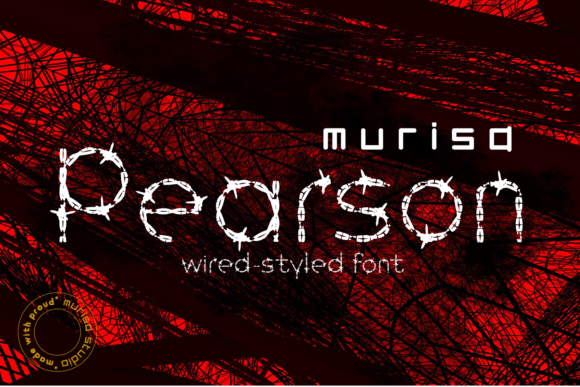
Introducing Murisa Pearson, the captivating display font that will elevate your designs to new heights. This modern marvel, crafted by the talented minds at murisa.studio, exudes a unique and enticing aura that will leave an unforgettable impression.
Prepare to be mesmerized as Murisa Pearson's bold and striking characters dance across your screens, demanding attention and captivating the senses. Its meticulously crafted curves and sharp angles create a visual symphony that will add a touch of sophistication and allure to any project.
With Murisa Pearson, you're not just adding a font; you're unlocking a world of limitless possibilities. Its versatile nature empowers you to effortlessly express your creativity, whether in bold headlines, captivating logos, or eye-catching social media posts.
Indulge in the sheer beauty of Murisa Pearson's intricate details. The smooth transitions and crisp edges will elevate your designs, adding a touch of elegance and refinement. Your audience will be drawn to its irresistible charm, leaving them captivated by your every word.
But there's more to Murisa Pearson than meets the eye. It's not just a font; it's a vessel for expressing your individuality and making a statement. Let your creativity soar as you experiment with its limitless possibilities.
Join the ranks of design enthusiasts who have embraced the transformative power of Murisa Pearson. Experience the joy of creating designs that stand out from the crowd and leave a lasting impact.
Don't settle for ordinary fonts. Choose Murisa Pearson, the display font that will ignite your imagination and empower you to create truly exceptional designs. It's more than just a font; it's a key to unlocking your creative potential. Embrace the beauty of Murisa Pearson today and embark on a typographical adventure that will captivate your audience and leave them spellbound.